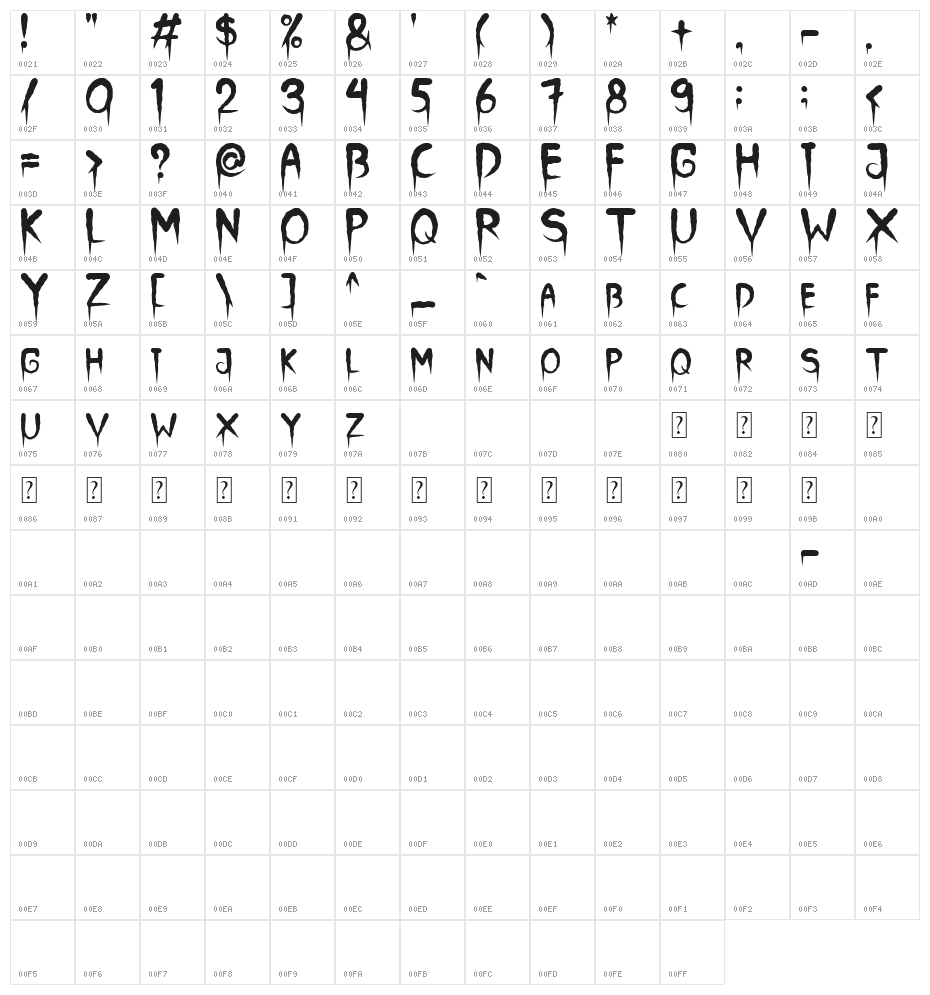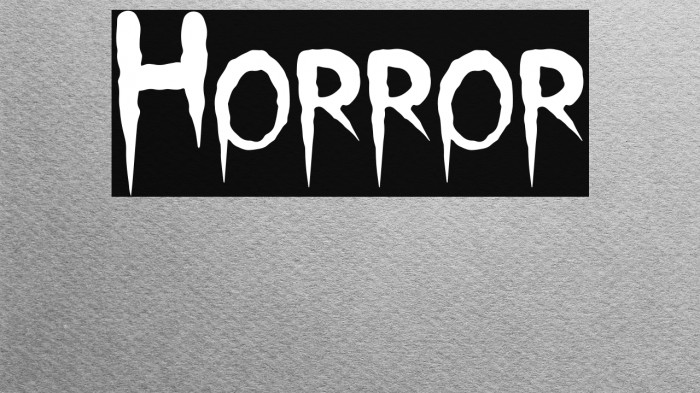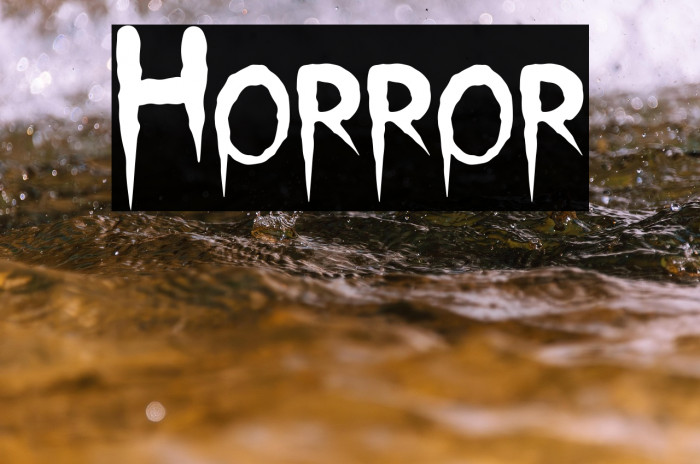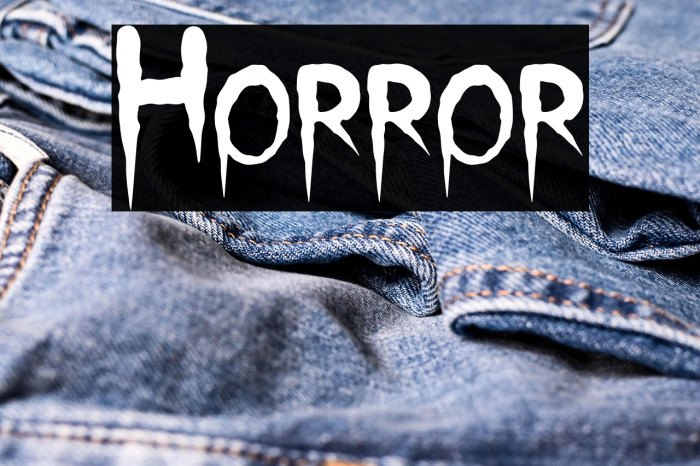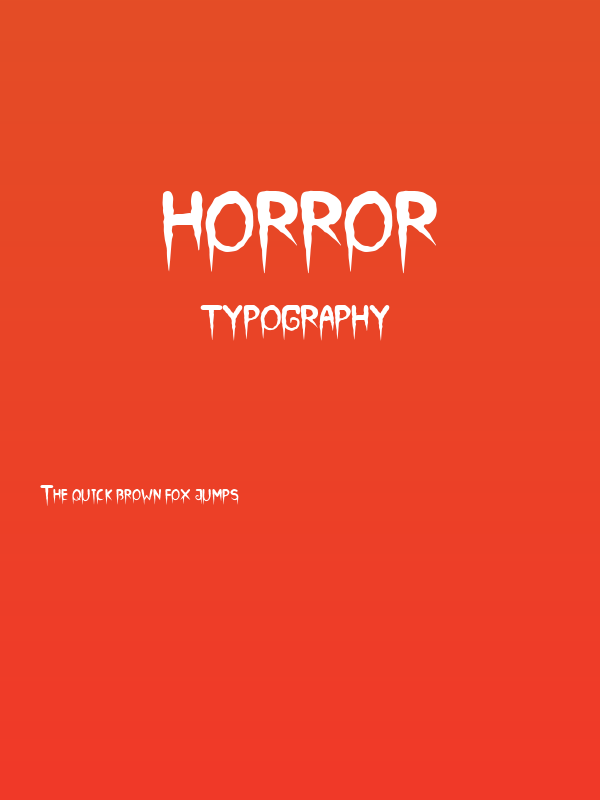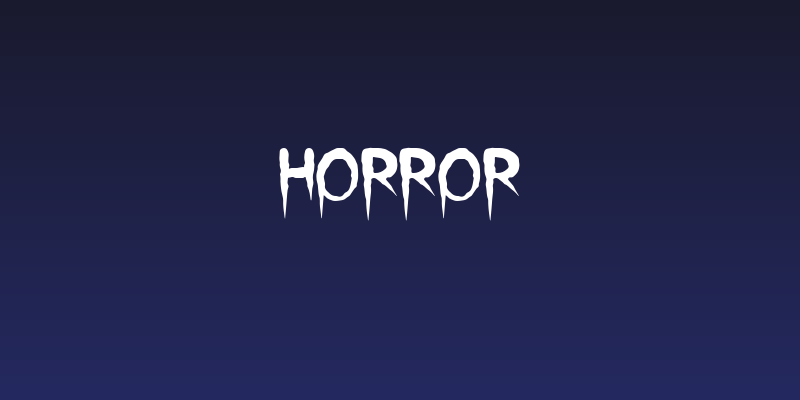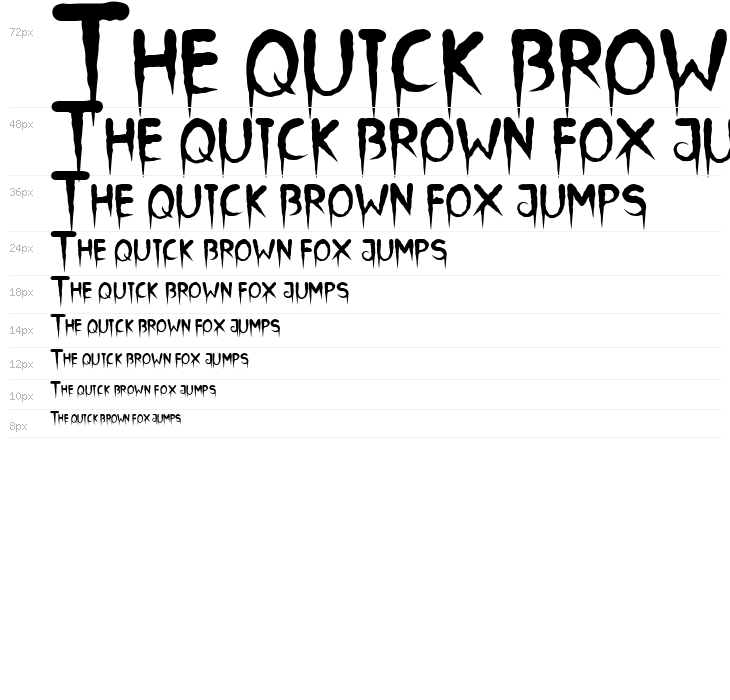
Horror Font
Horror Description
This font features a chilling and eerie design, perfect for creating a sense of horror or suspense. The letters are jagged and irregular, with sharp, pointed edges that evoke a sense of danger and unease. The uppercase and lowercase characters maintain a consistent style, with exaggerated spikes and uneven lines that add to the unsettling aesthetic. Numbers and special characters follow the same theme, ensuring a cohesive look across all text elements. This font is ideal for projects that aim to capture a spooky or gothic atmosphere.
| Overall Style | Horror, Gothic |
| Proposed Projects | Perfect for Halloween posters, horror movie titles, haunted house flyers, and spooky event invitations. |